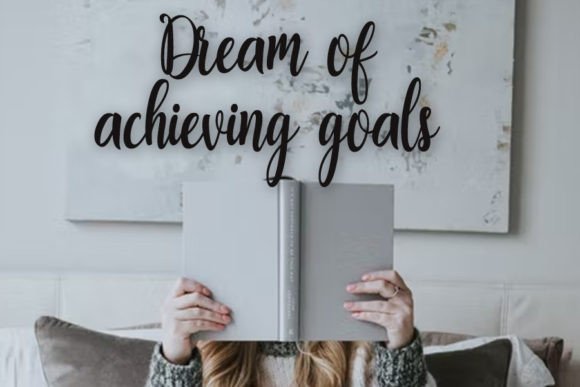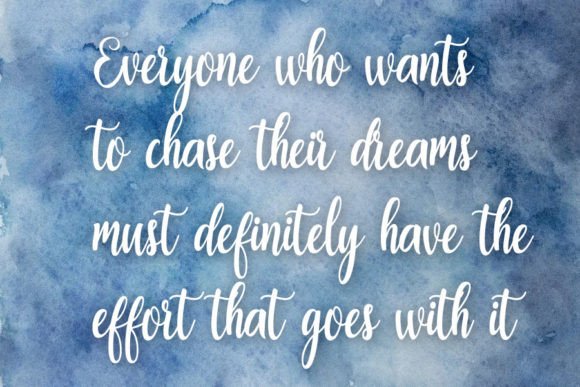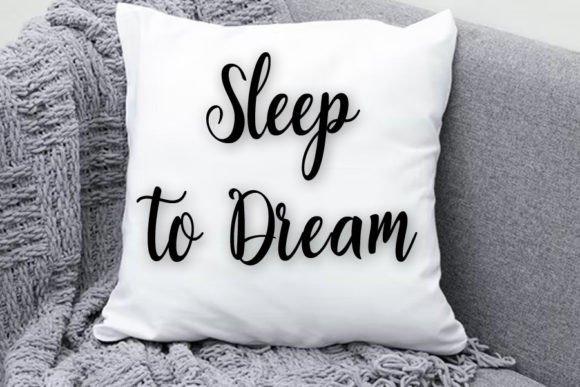
Woshil Font
About Woshil Font
Woshil is a font that emanates freshness and beauty, making it an excellent choice for various design purposes. Whether you’re working on YouTube banners, cover logo mockups, wedding invitations, ID cards, flyers, or crafts, Woshil brings a distinctive charm that enhances the visual appeal of your projects.
This font’s versatility is highlighted in its suitability for a wide range of design applications. For YouTube banners and cover logo mockups, Woshil stands out by infusing a sense of freshness and uniqueness. Its clean and stylish appearance contributes to creating eye-catching visuals that capture the attention of your audience, making your branding and promotional materials more impactful.
In the realm of special occasions, Woshil proves to be an excellent choice for wedding invitations. The font’s beauty and simplicity bring an elegant touch to the design, setting the tone for a memorable and stylish event. Its unique character adds a personalized flair, making your invitations stand out and leaving a lasting impression on recipients.
When it comes to ID cards, Woshil strikes a balance between simplicity and uniqueness. The clean lines of the font contribute to a professional and modern aesthetic, ensuring that your ID cards are not only functional but also visually appealing.
In the realm of promotional materials like flyers, Woshil’s fresh and beautiful design adds a touch of sophistication, making your messaging more engaging and memorable. The font’s simplicity enhances readability, ensuring that your information is communicated effectively to your target audience.
Craft projects also benefit from the unique charm of Woshil. Whether you’re creating handmade items, labels, or other craft-based designs, this font brings a level of creativity and style that complements your artistic endeavors.
In summary, Woshil is more than just a font; it’s a design asset that contributes to the progress and development of your business. Its simplicity and uniqueness make it a valuable tool for a variety of design purposes, allowing you to create visually stunning and impactful projects across different mediums. Embrace the fresh and beautiful qualities of Woshil to elevate your design work and make a positive impression on your audience.